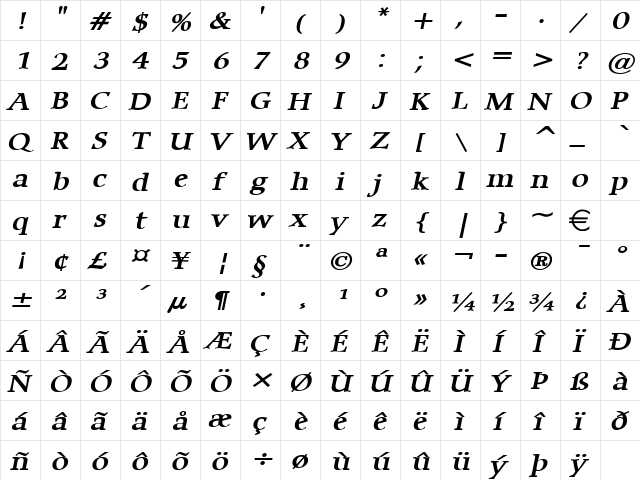
CarmineWide BoldItalic
Design Context for CarmineWide Typeface
CarmineWide is a composed and adaptable typeface that performs quietly and consistently across a wide range of design contexts. The dynamic lean of this cut emphasises speed and emphasis in any layout. Its bold stroke weight gives it real presence on the page.
Pro Tip: Try CarmineWide for annotation and caption copy alongside an upright companion — the contrast in angle creates a dynamic but ordered typographic system.